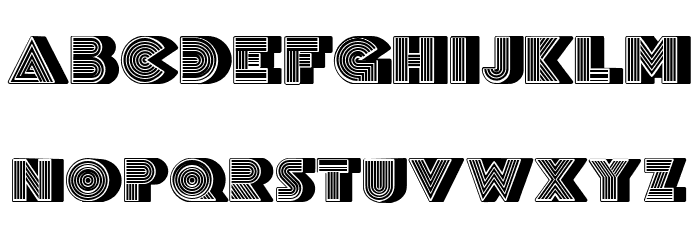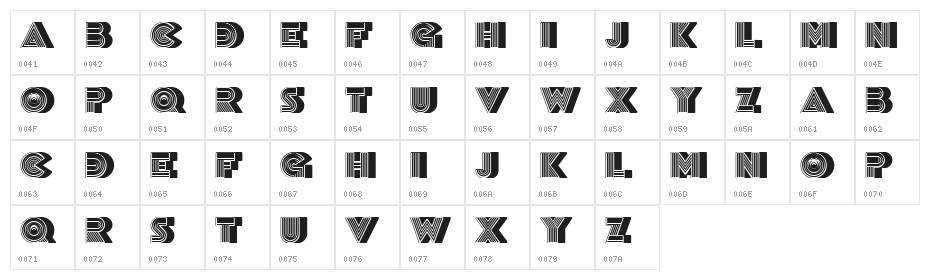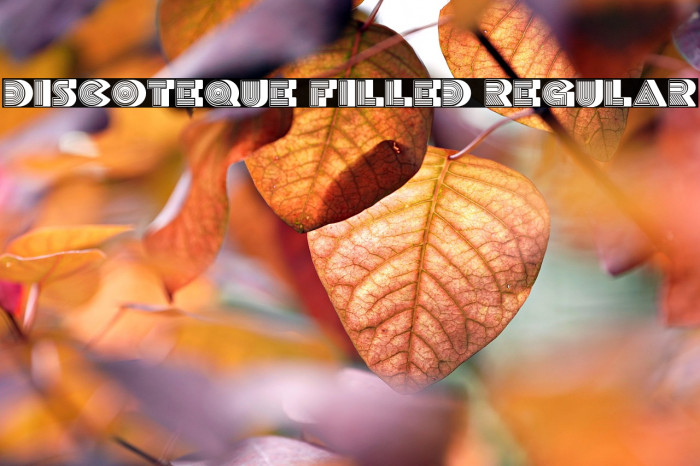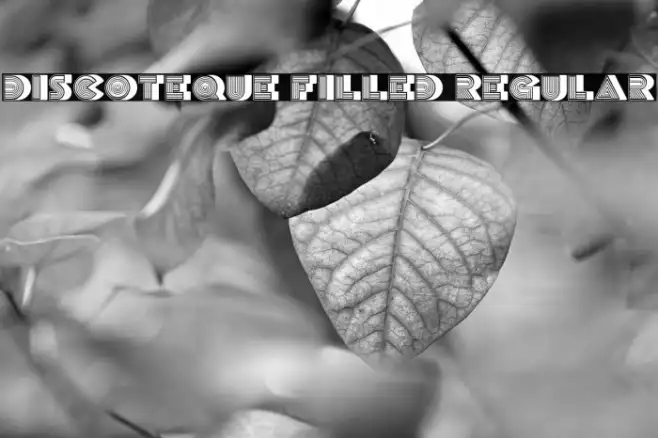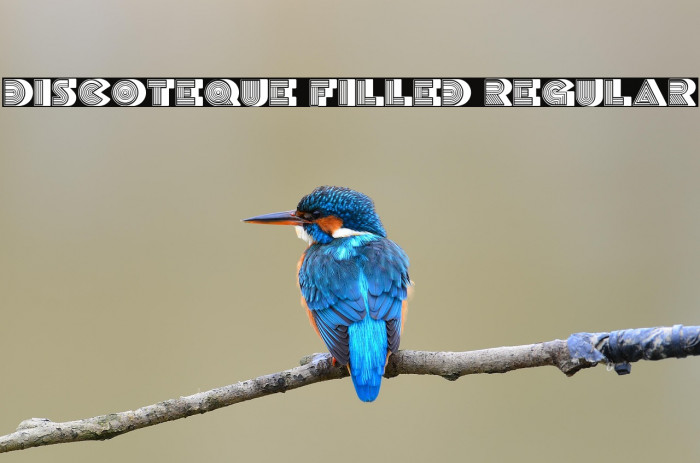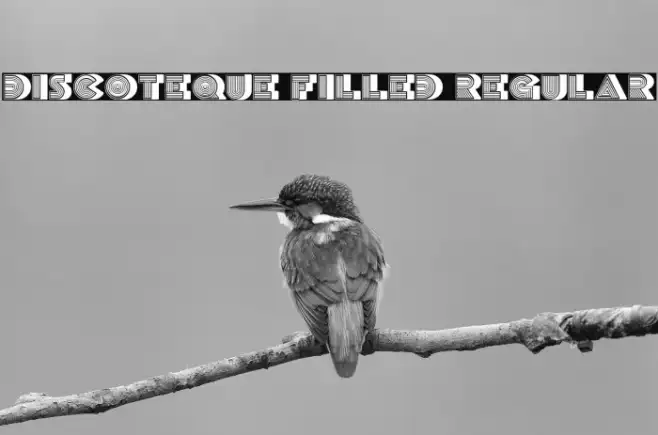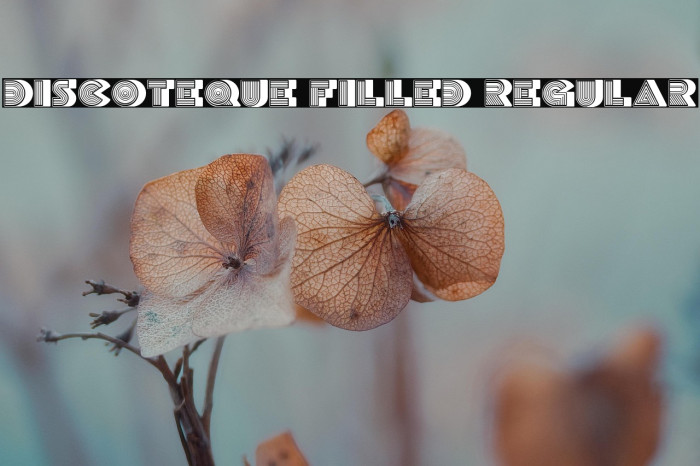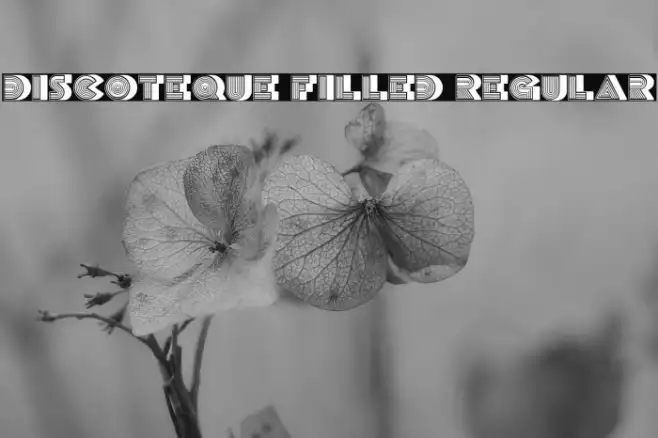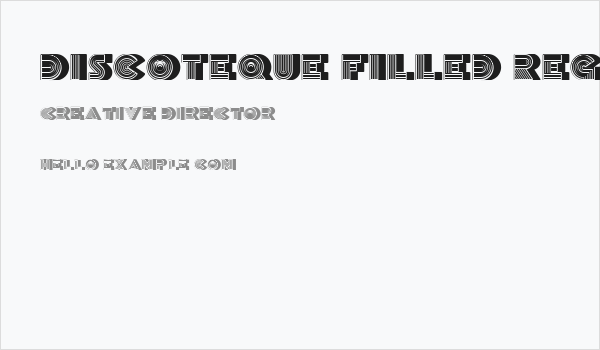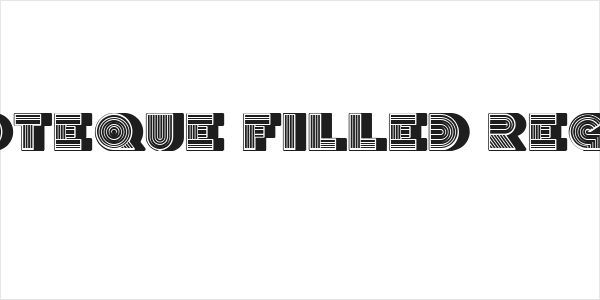
Discoteque Filled Regular Font
Discoteque Filled Regular Description
This font features a bold, geometric design with a distinct retro vibe. Each letter is constructed with multiple parallel lines, creating a layered, three-dimensional effect. The boldness of the characters is complemented by the intricate line work, giving it a dynamic and eye-catching appearance. The font's style is reminiscent of disco and pop culture from the late 20th century, making it ideal for projects that aim to capture a sense of nostalgia or vibrant energy. The uppercase letters are particularly striking, with their wide, expansive forms and detailed line patterns.
| Overall Style | Retro, Decorative |
| Proposed Projects | Ideal for posters, album covers, event flyers, and branding projects that require a bold, retro aesthetic. |